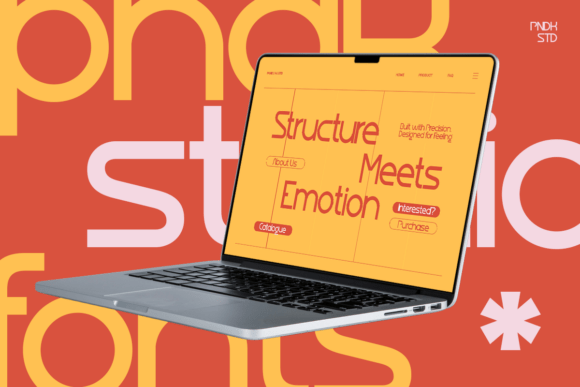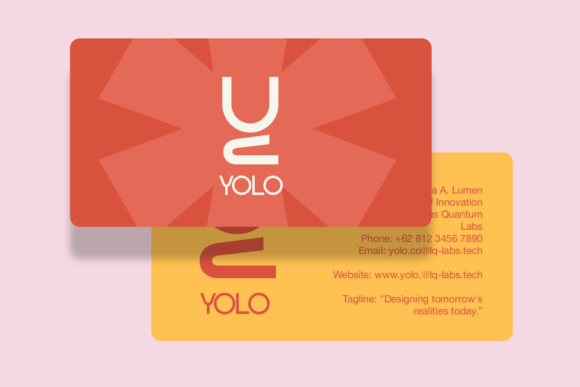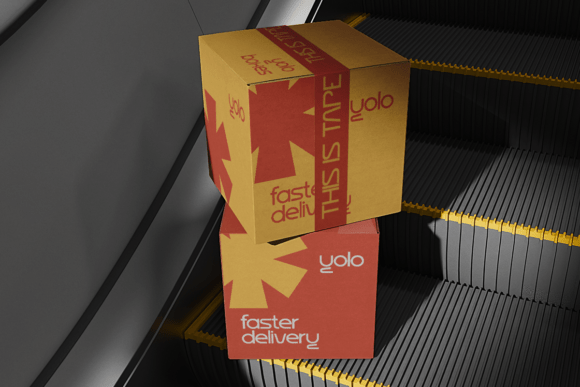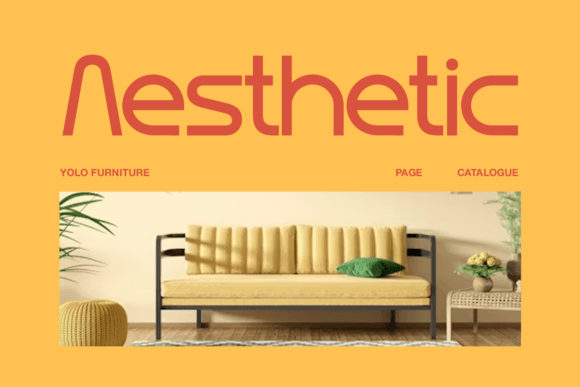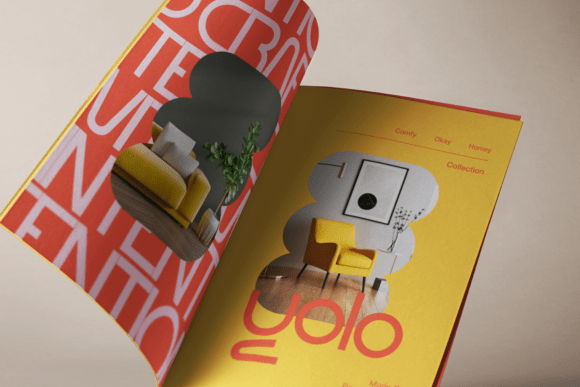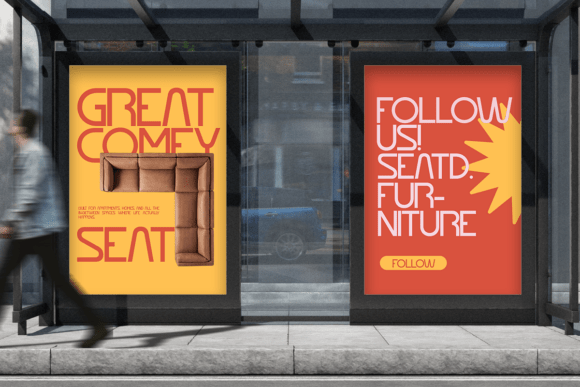
Begob Font: The Epitome of Modern Minimalism in Typography
In the realm of typography, the Begob font has emerged as a beacon of modern minimalism, captivating designers and crafters with its clean geometric shapes, smooth curves, and stylish contemporary aesthetic. This font, designed with a keen eye for detail and a deep understanding of visual appeal, has become an indispensable tool for creating bold yet friendly visual identities. Whether you’re working on modern branding, furniture catalogues, editorial layouts, posters, websites, packaging, or creative visual identities, Begob offers a unique blend of style and readability that is hard to match.
The Design Philosophy Behind Begob
Begob’s design philosophy revolves around simplicity, readability, and a strong visual character. It features a single Regular style, which might seem limited at first glance, but proves to be a deliberate choice to ensure versatility and adaptability across various design applications. The font’s clean structure and balanced proportions are key to its minimalist look, making it feel modern, fresh, and highly readable. This balance ensures that Begob stands out in a crowded visual landscape, offering a breath of fresh air to designers looking for a typeface that can convey their message with clarity and style.
Key Features of Begob Font
- Clean Geometric Shapes: The font is crafted with geometric shapes that provide a clean and crisp appearance, ideal for designs that require a modern touch.
- Smooth Curves: The incorporation of smooth curves adds a layer of friendliness and approachability to the font, making it versatile for various design projects.
- Stylish Contemporary Aesthetic: Begob boasts a stylish and contemporary look that aligns with current design trends, ensuring your projects look modern and relevant.
- Bold yet Friendly Appearance: The unique letterforms of Begob create a bold yet friendly appearance, perfect for making a statement in branding and advertising.
- High Readability: Despite its bold appearance, Begob maintains high readability, making it suitable for body text and headlines alike.
Applications of Begob Font
The versatility of Begob font makes it an excellent choice for a wide range of applications. Here are some of the areas where Begob truly shines:
- Modern Branding: Use Begob to create a strong and modern visual identity for your brand, setting you apart from competitors.
- Furniture Branding: Its unique design makes it particularly suitable for furniture branding, adding a touch of sophistication and modernity.
- Editorial Layouts: Begob’s readability and style make it perfect for editorial layouts, enhancing the overall reading experience.
- Posters and Flyers: The font’s bold and friendly appearance is ideal for posters and flyers, grabbing attention and communicating your message effectively.
- Websites and Digital Media: Begob’s clean and modern aesthetic makes it a great choice for website headers and digital media, improving user experience.
- Packaging and Product Design: Add a modern touch to your product packaging with Begob, making your products stand out on store shelves.
- Lifestyle Branding and Social Media Graphics: The font’s stylish appearance is well-suited for lifestyle branding and social media graphics, helping to build a strong online presence.
Why Choose Begob Font?
In a world where typography plays a crucial role in design, Begob font stands out for its unique blend of modern minimalism and readability. Here are a few reasons why designers and crafters are gravitating towards Begob:
- Unique Aesthetic: Begob offers a fresh and unique aesthetic that can elevate your designs and make them more engaging.
- Versatility: Its versatility across various design applications makes Begob a valuable addition to any designer’s toolkit.
- Readability: The font’s high readability ensures that your message is communicated effectively, whether in headlines or body text.
In conclusion, Begob font represents the perfect marriage of form and function, offering designers and crafters a powerful tool to create visually stunning and effective designs. Its modern minimalism, combined with its versatility and readability, makes it an excellent choice for a wide range of projects. Whether you’re looking to make a bold statement or simply enhance your brand’s visual identity, Begob is a typeface that deserves consideration.